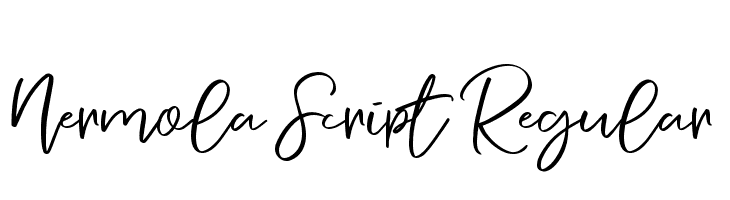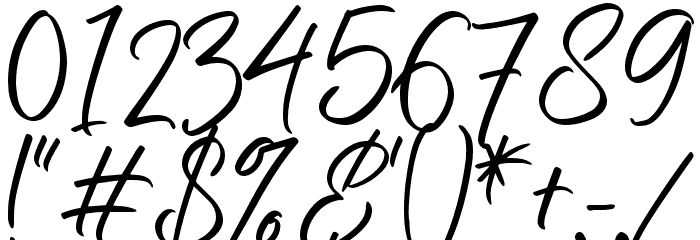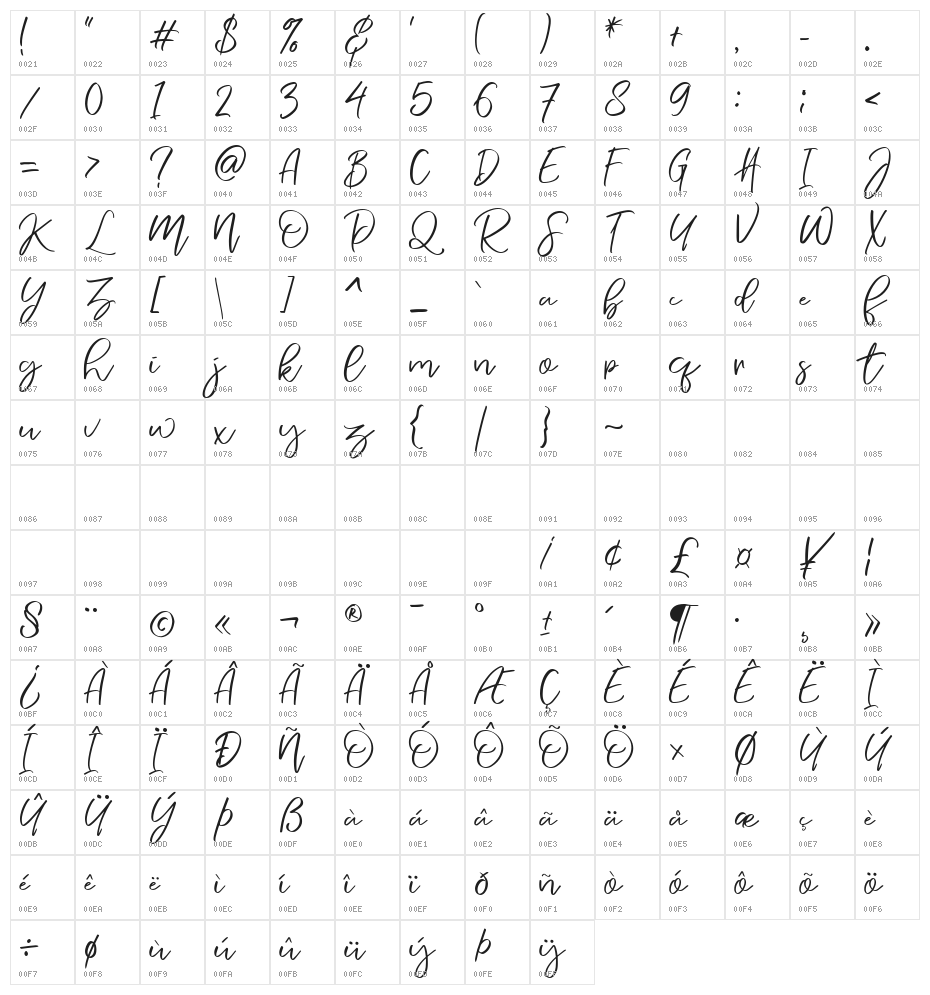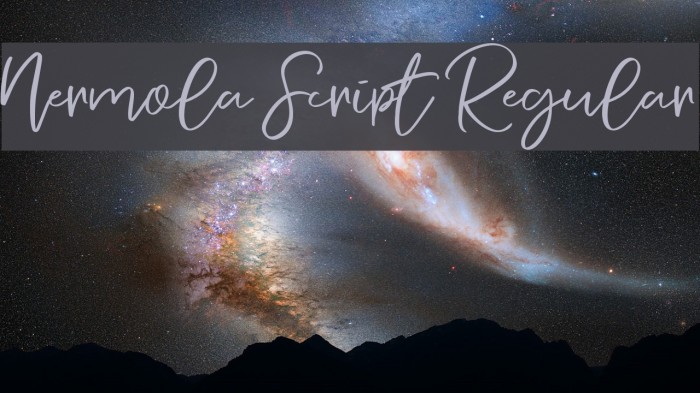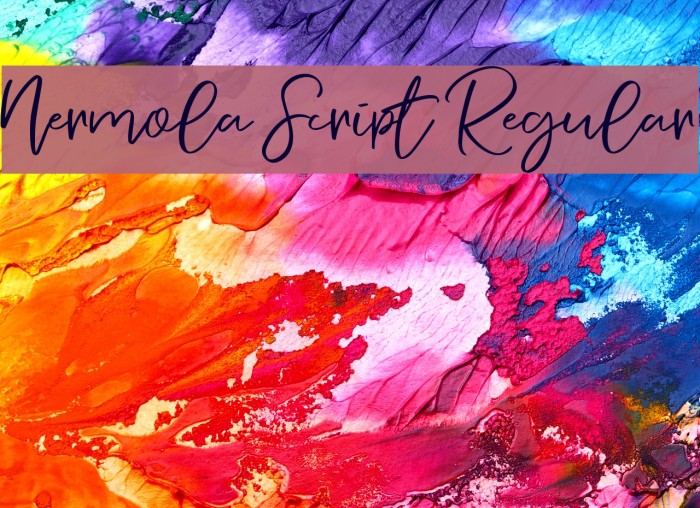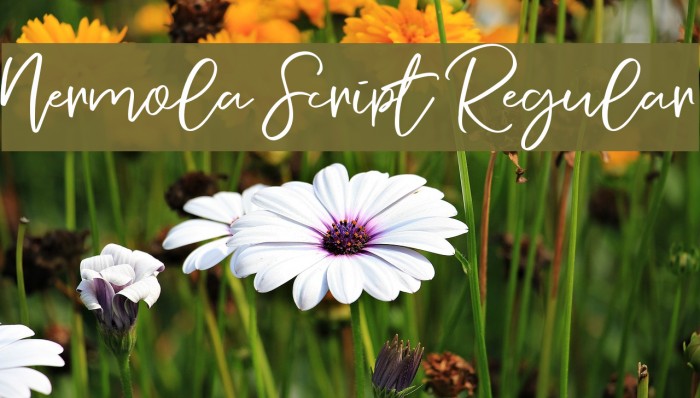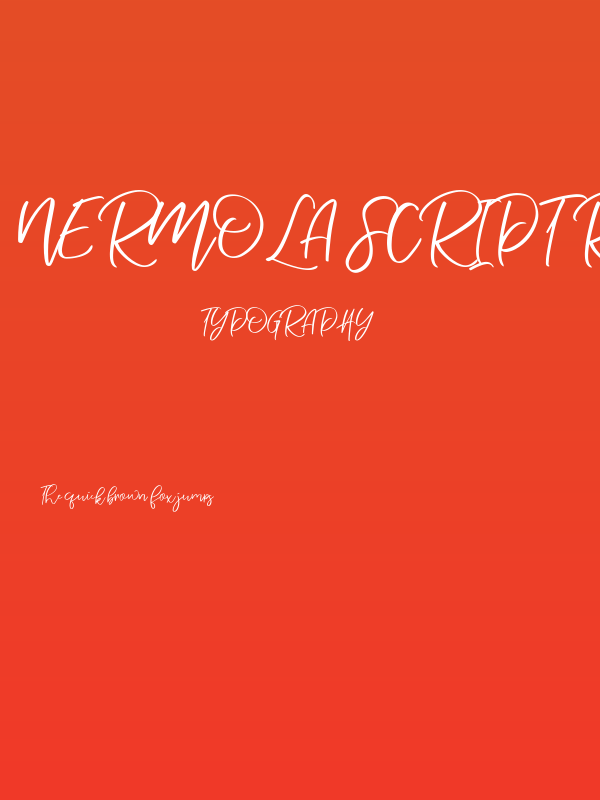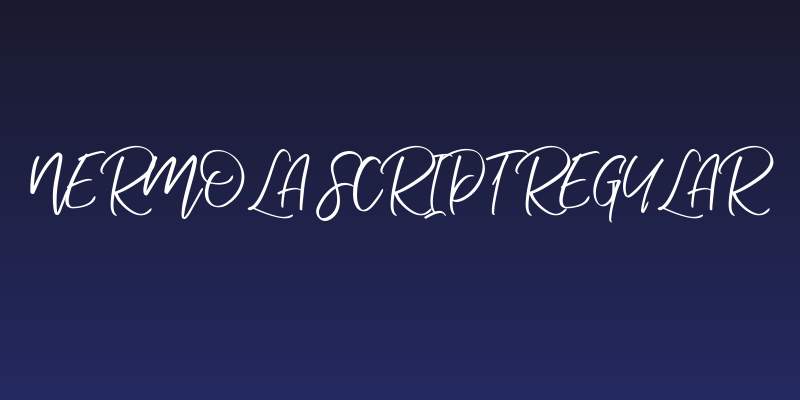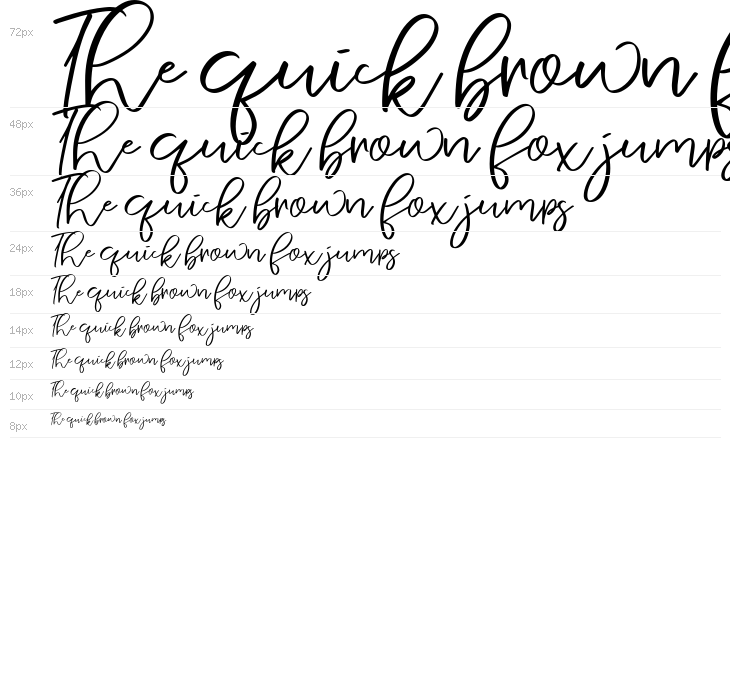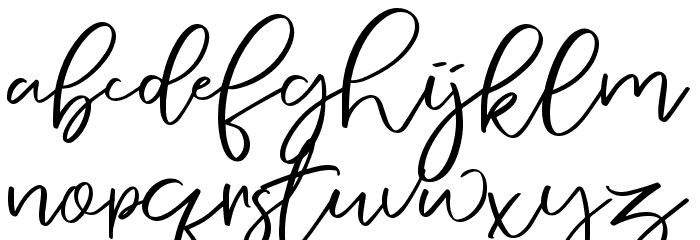
Nermola Script Regular Font
Nermola Script Regular Description
This script font exudes a lively and dynamic character with its fluid, cursive strokes. The letters are interconnected, mimicking natural handwriting with a modern twist. Each character flows seamlessly into the next, creating a sense of movement and elegance. The uppercase letters are bold and prominent, while the lowercase letters maintain a consistent rhythm and style. The numerals and special characters are crafted with the same attention to detail, ensuring uniformity across the font. This font is perfect for projects that require a personal touch, such as invitations, greeting cards, or branding materials.